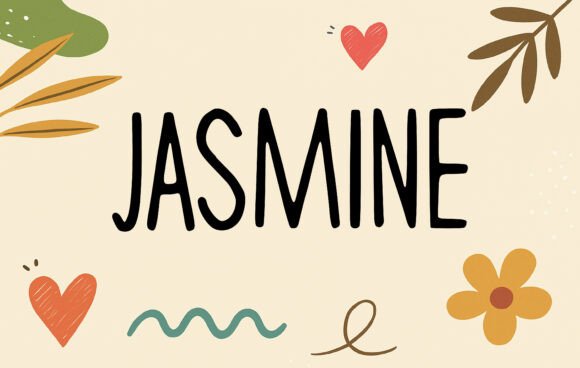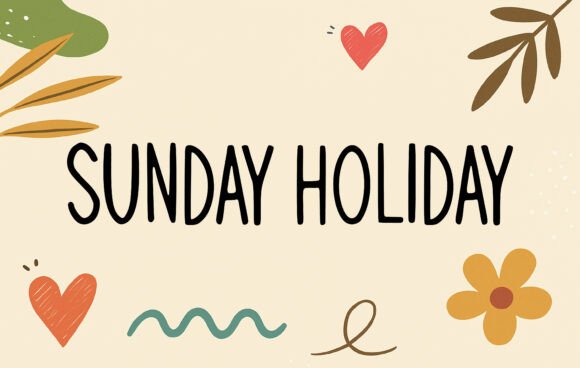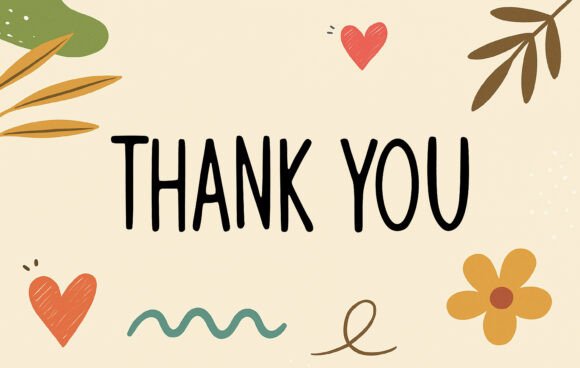
Jasmine Font: A Cute Display Font for Cricut & Social Media Design
About the Jasmine Font
Explore the possibilities with Jasmine Font, a font that offers both beauty and functionality. Jasmine is designed to be a true favorite, and it has the potential to take your creative ideas to the highest level
Jasmine’s elegant yet approachable style makes it ideal for headlines, branding applications, and short-form text on packaging or invitations. Its legibility shines in larger sizes, but its delicate details can become lost in lengthy body copy or small UI elements. Avoid using it for extensive blocks of text.
For a sophisticated pairing, consider combining Jasmine with a clean sans-serif like Montserrat for body copy, or a geometric sans-serif like Futura for a more modern feel. A playful script font could also complement its elegance for a touch of whimsy in wedding invitations or branding for artisanal products.
Jasmine projects a refined and friendly personality, lending itself well to brands that value sophistication without sacrificing approachability. It’s suitable for projects requiring a touch of classic charm with a contemporary edge.
Jasmine Font Usage Examples